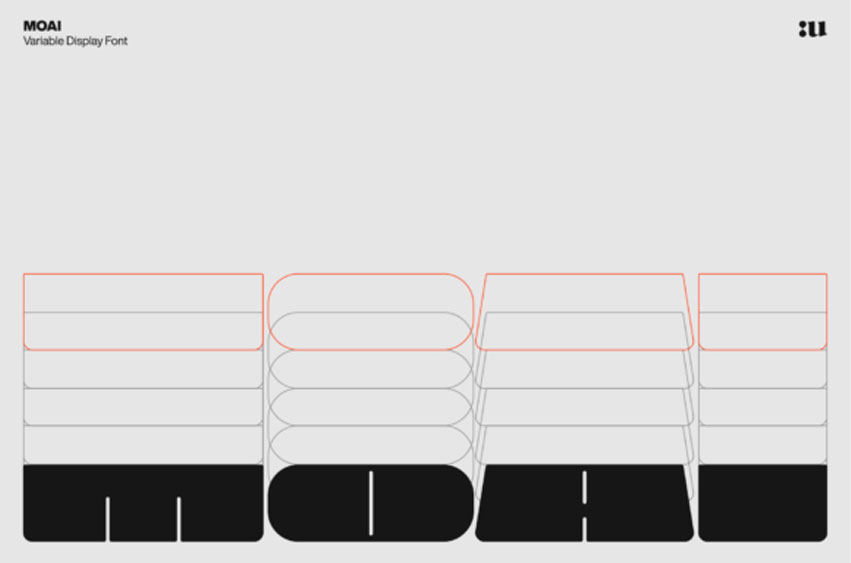
Moai Font
Moai Font is a cool, bold and thick lettered display font.
This font can be used to write various kinds of products according to the aspect of each need.